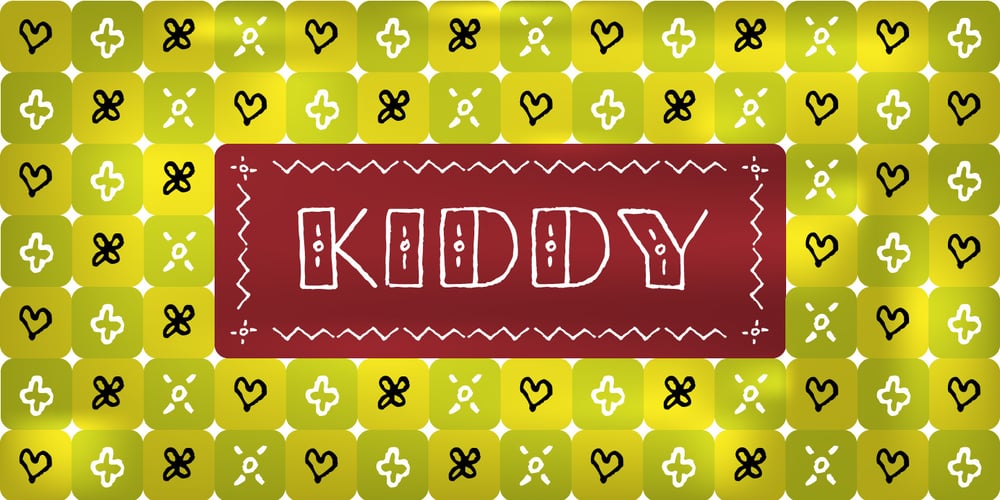
Kiddy Font Family was designed by Maria Luarvik and published by Gaslight. Kiddy contains 1 styles and family package options. Kiddy is simple and slightly rough on one side and light and funny on other side. Kiddy have two set initials (realised as Contextual and Titling Alternates) and numerous decorative elements.